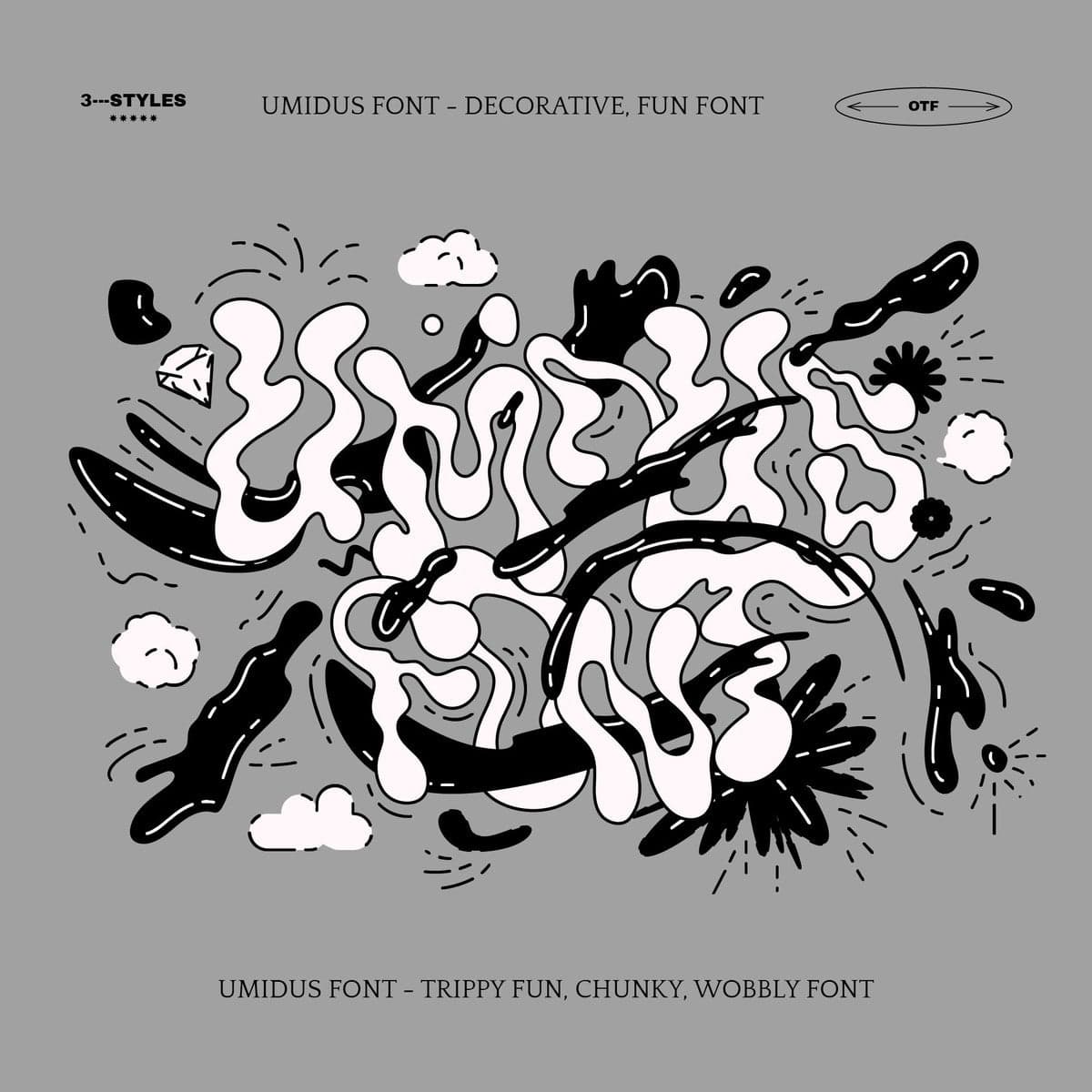
<p>Umidus font - Trippy wavy liquid decorative font, which works perfectly for bold titles, Festival posters, as a graphic element for bright T-shirts or hoodies, or even backgrounds! This weird and ugly font likes an experiment with spacing and different deformation. Please, don't hold back on your bold modern ideas!<br><strong>✦ You will receive: ✦</strong></p> <ul> <li>3 OTF files (3 font styles: plane black, transparent outline, black with highlights)</li> <li>3 TTF files (3 font styles: plane black, transparent outline, black with highlights)</li> <li>3 WOFF (WebFont) file (3 font styles: plane black, transparent outline, black with highlights)</li> <li>AI, EPS, and PDF vector files with totally editable strokes of highlights!</li> <li>PDF with preview. </li> <li>ATTENTION! The font comes WITHOUT any photos, textures, or effects. </li> </ul>